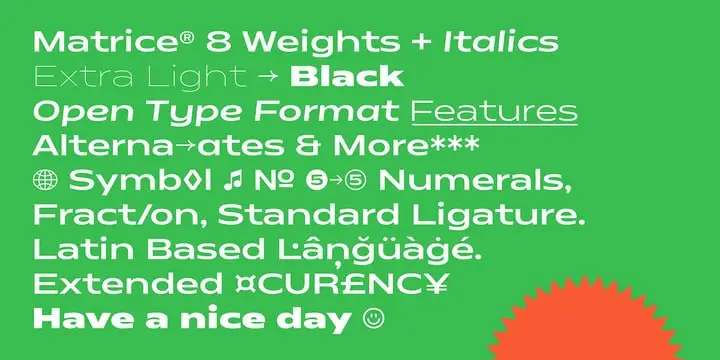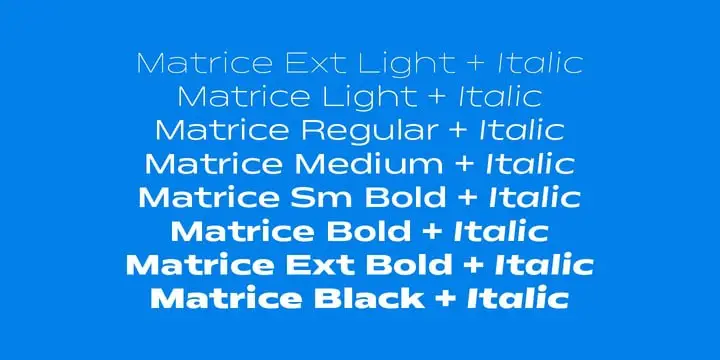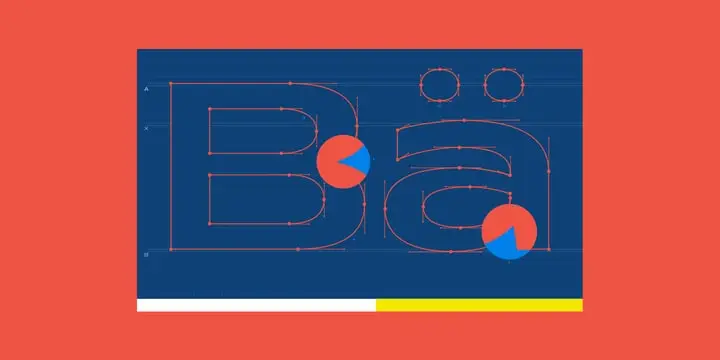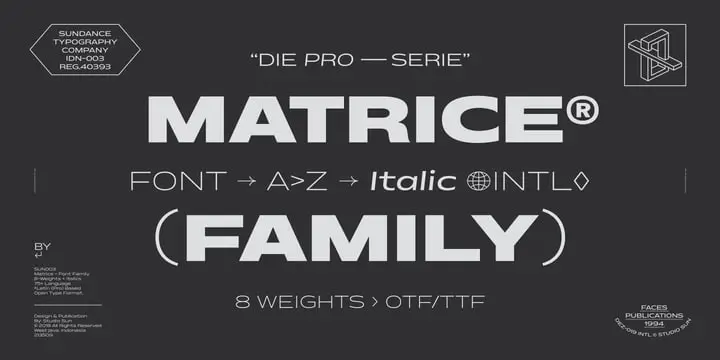
Matrice Font Family (C) Studio Sun-Extended Latin
The Matrice Font Family is a versatile typeface designed by Studio Sun, featuring an extended Latin character set. This font family is perfect for a variety of design applications, from branding and logos to web and print projects.
• Multiple weights and styles for diverse design needs
• Extended Latin character set for comprehensive language support
• Clean, modern aesthetic suitable for both headings and body text
• Weights: Regular, Bold, Italic, and more
Utilize the different weights to create visual hierarchy in your designs. The clean lines of Matrice make it an excellent choice for both digital and print media.